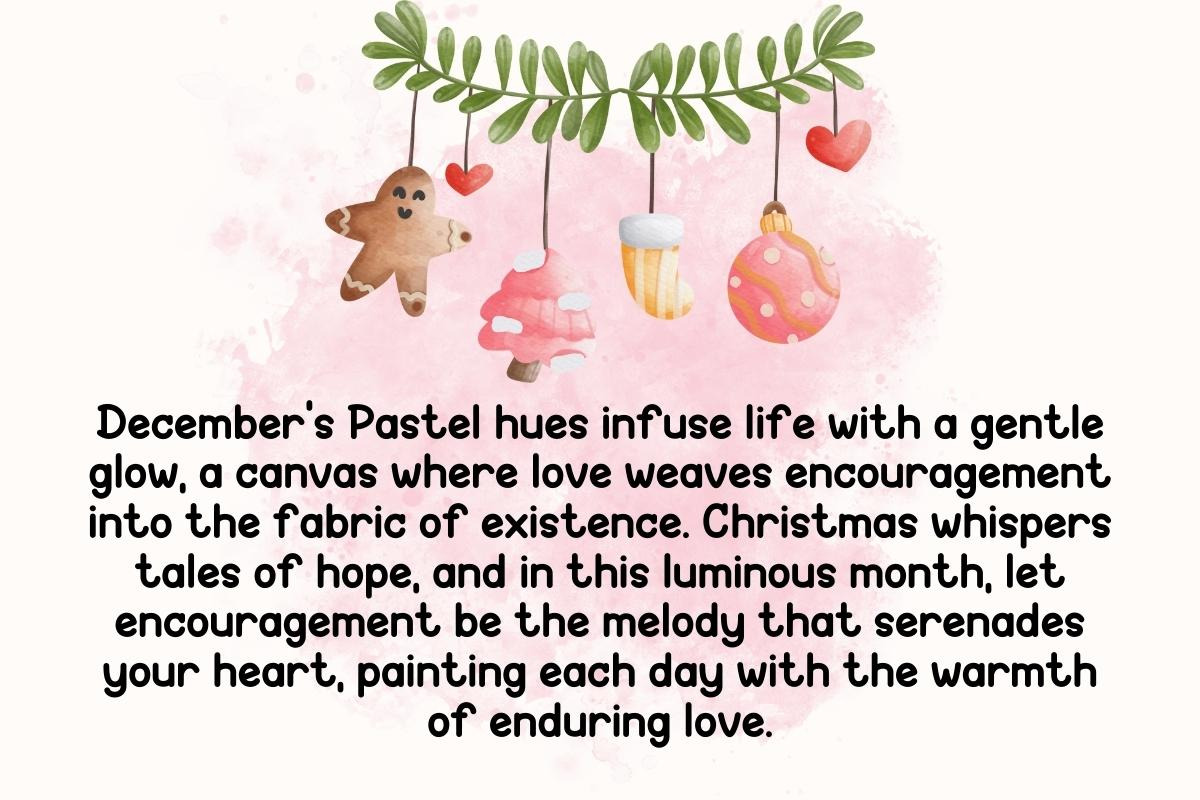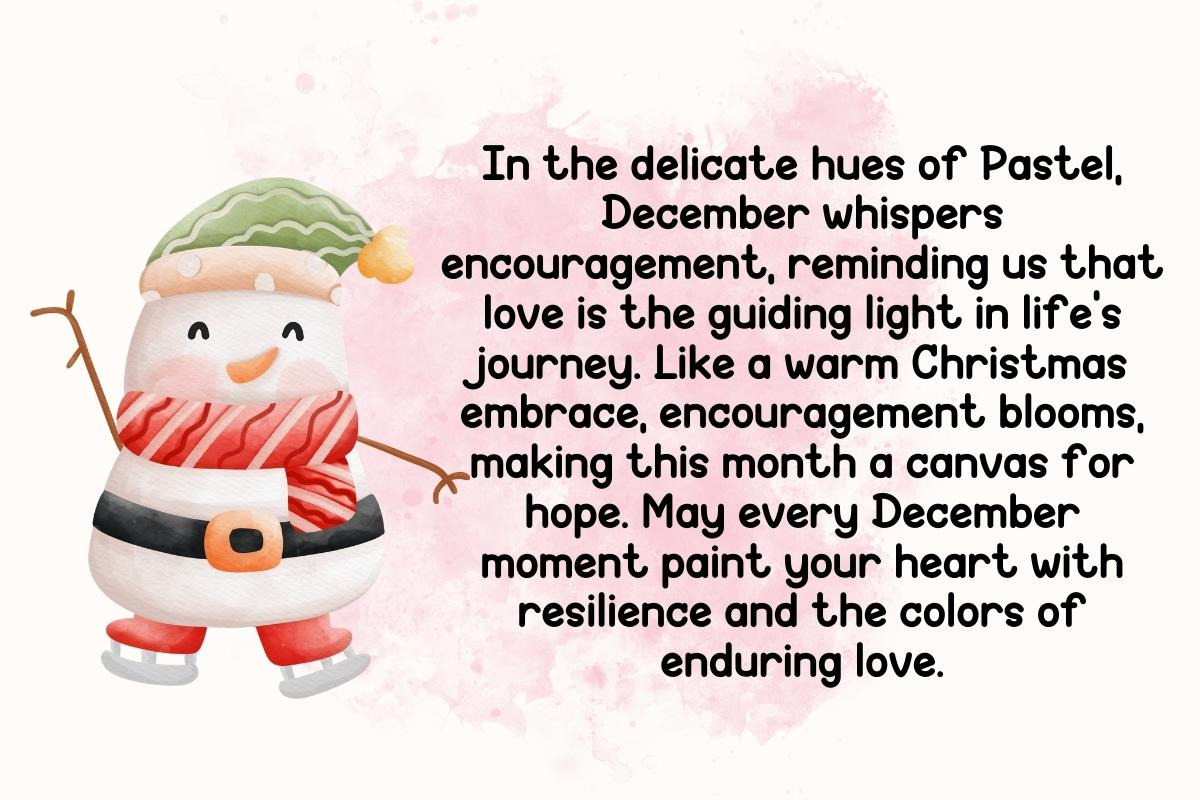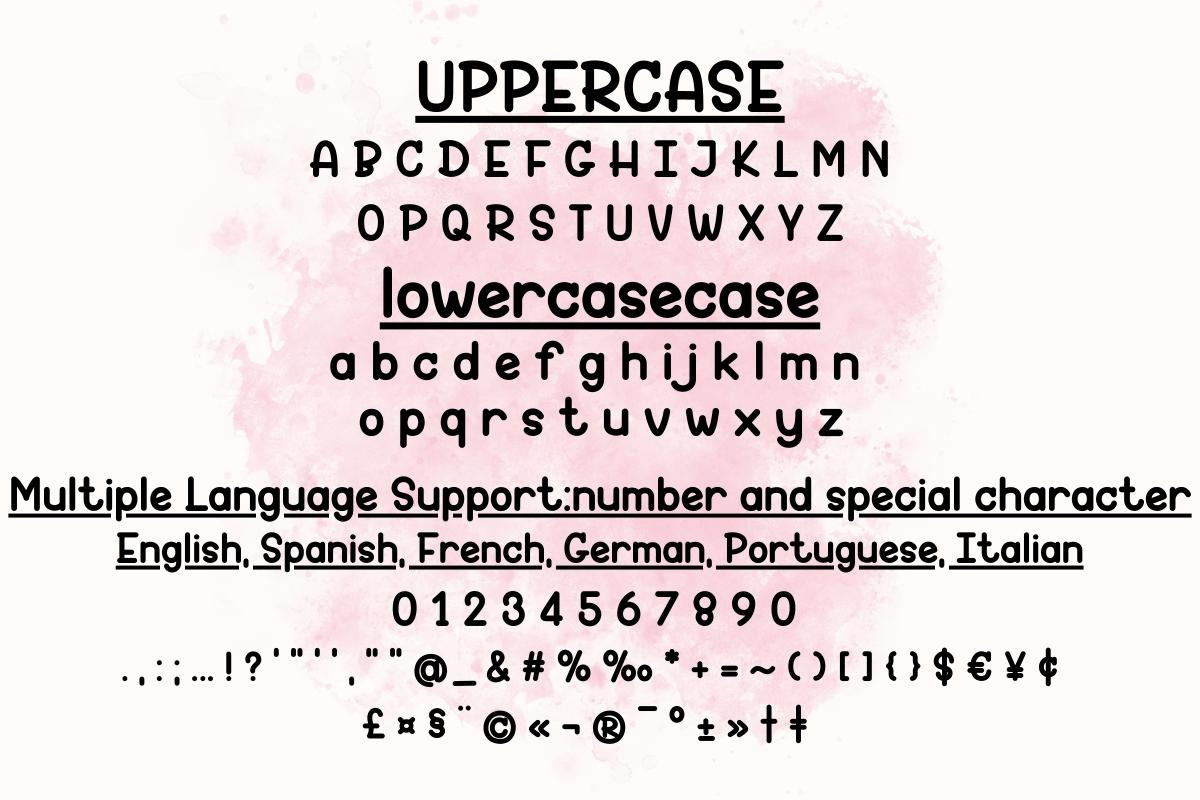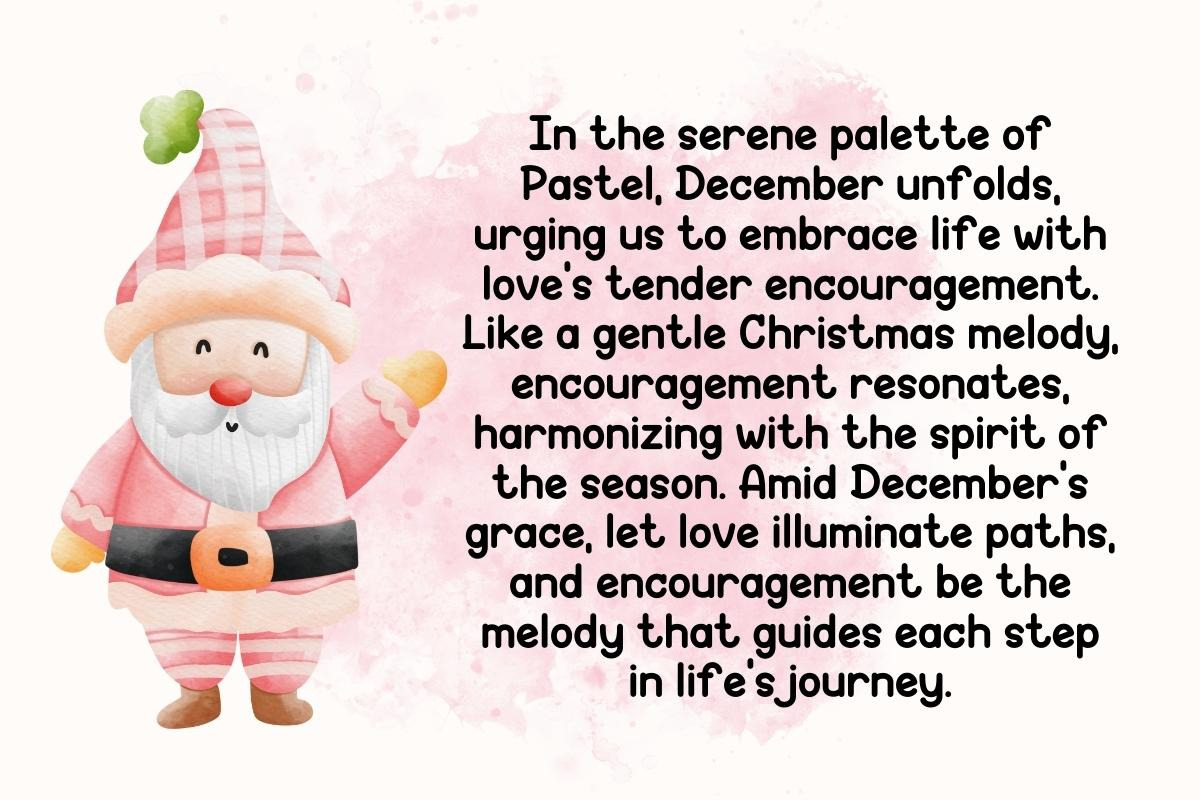
December Pastel - Script Handwritten
Discover the enchanting world of typography with "December Pastel," a font that beautifully captures the essence of nostalgia and warmth. Embrace the delicate strokes and subtle curves that make each character a timeless work of art. Elevate your designs with the charm of December Pastel, where every letter tells a story.